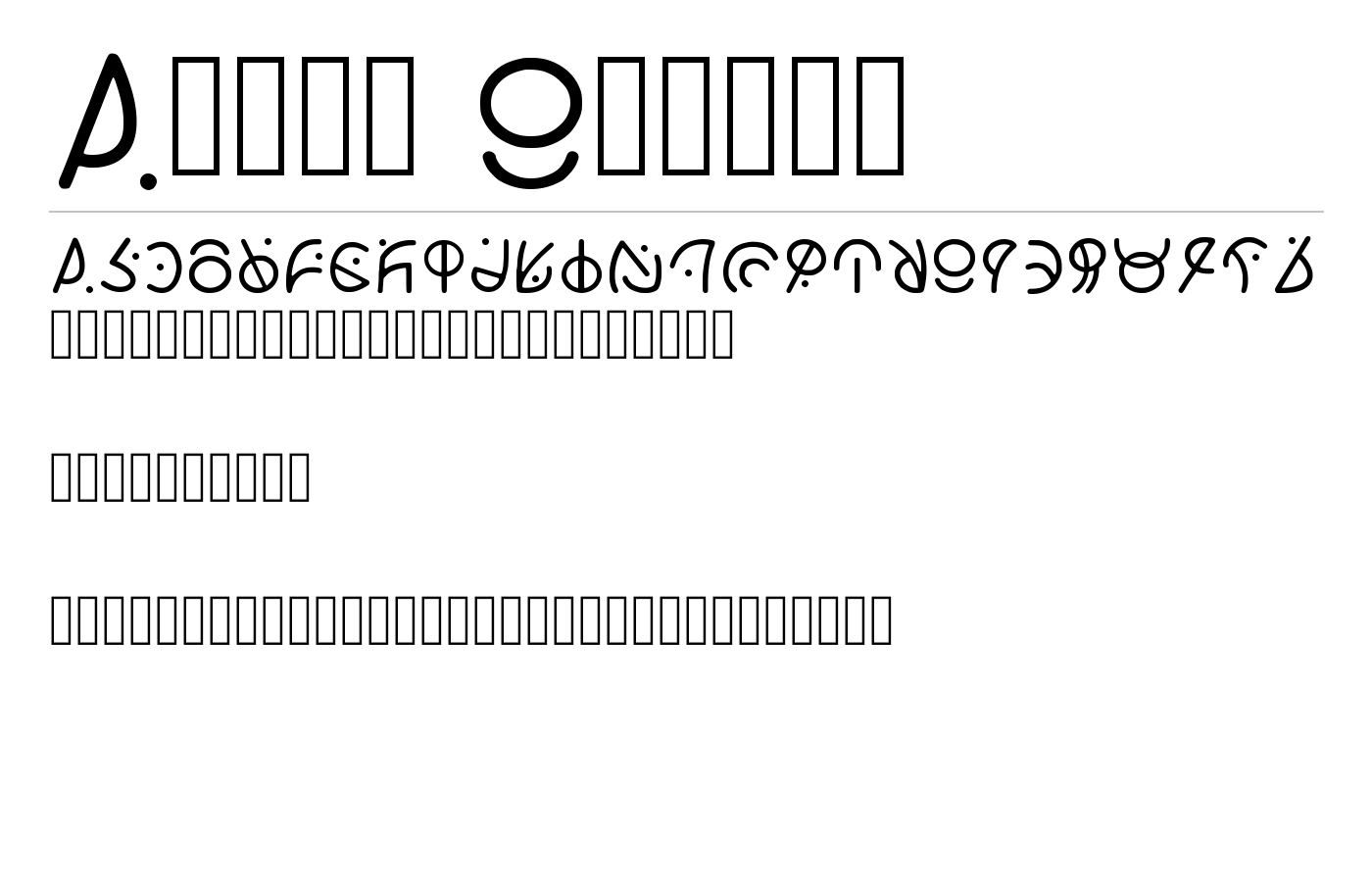
Alien Script Font is a sleek, futuristic sans serif typeface characterized by its thin, smooth strokes and rounded geometric shapes that convey a modern and otherworldly vibe. Its evenly spaced, minimalist design paired with unique, abstract glyph forms makes it perfect for sci-fi themes, technology branding, and creative projects that want to evoke mystery or an extraterrestrial feel. This font works best in headlines, logos, and digital media where its distinctiveness can capture attention and set a visionary tone.
Alien Script Font
About Alien Script Font